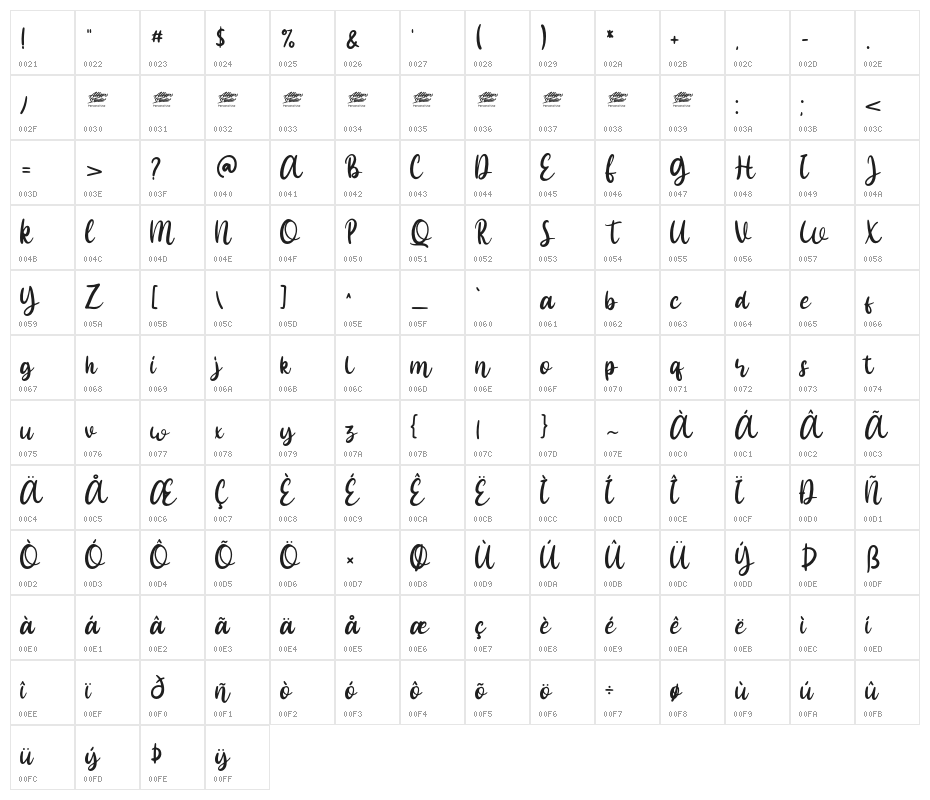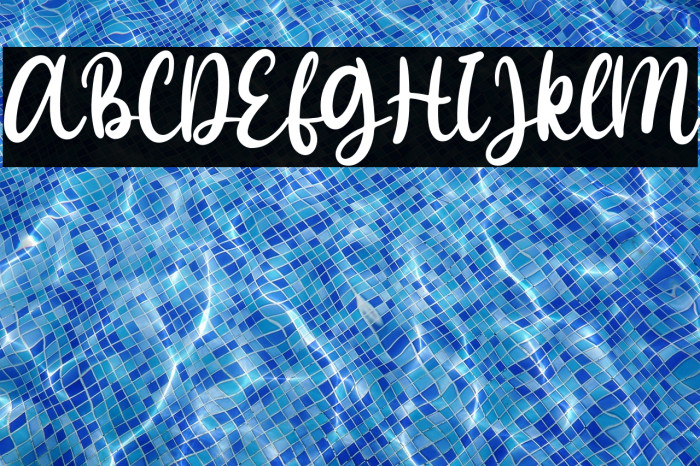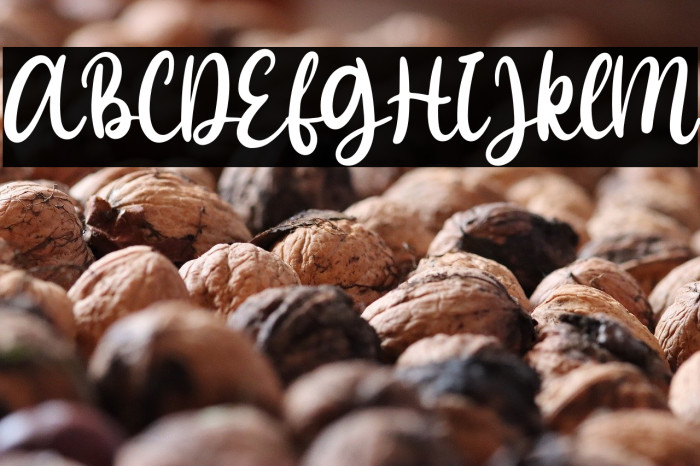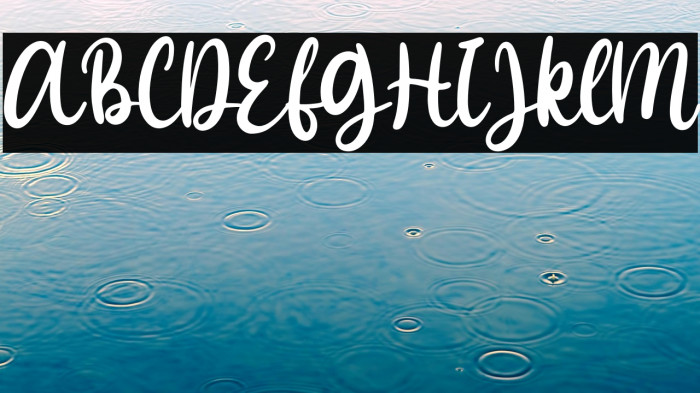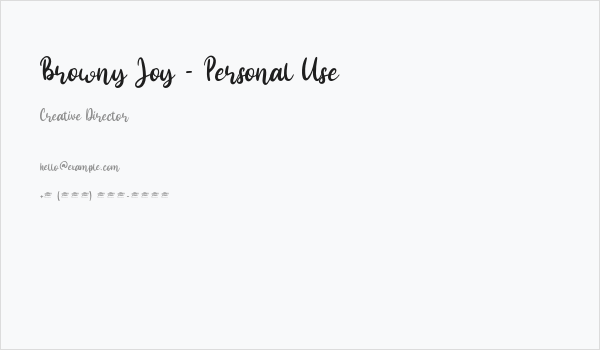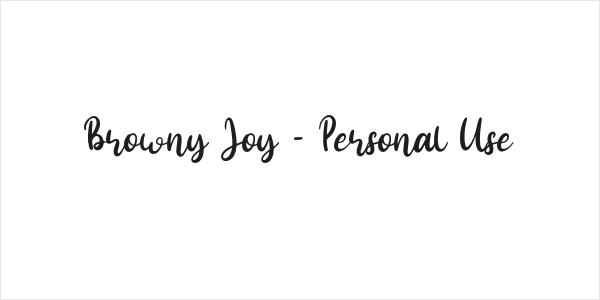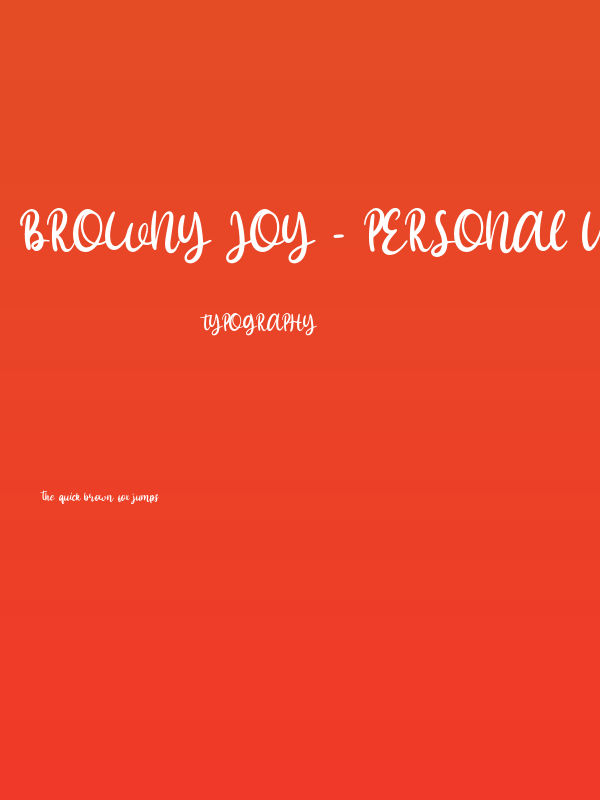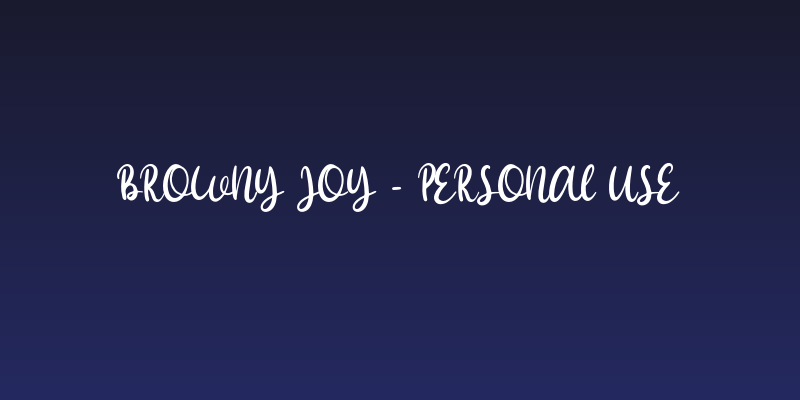
Browny Joy - Personal Use Font
Browny Joy - Personal Use Description
This font features a playful and flowing script style, characterized by its smooth, rounded curves and elegant loops. The letters are interconnected, creating a sense of continuity and fluidity. The uppercase letters are slightly taller and more pronounced, while the lowercase letters maintain a consistent height, enhancing readability. The strokes vary in thickness, adding a dynamic and lively feel to the text. This font exudes a casual yet sophisticated charm, making it suitable for a variety of creative applications.
| Proposed Projects | Ideal for wedding invitations, greeting cards, branding, and social media graphics. |